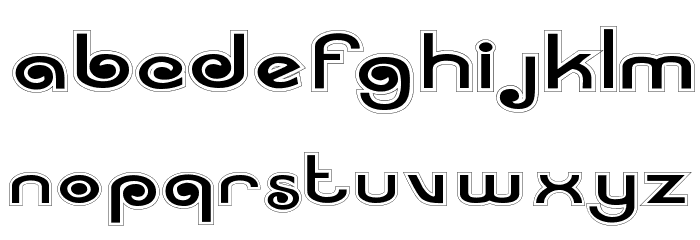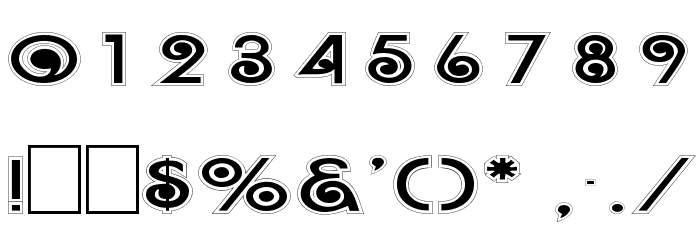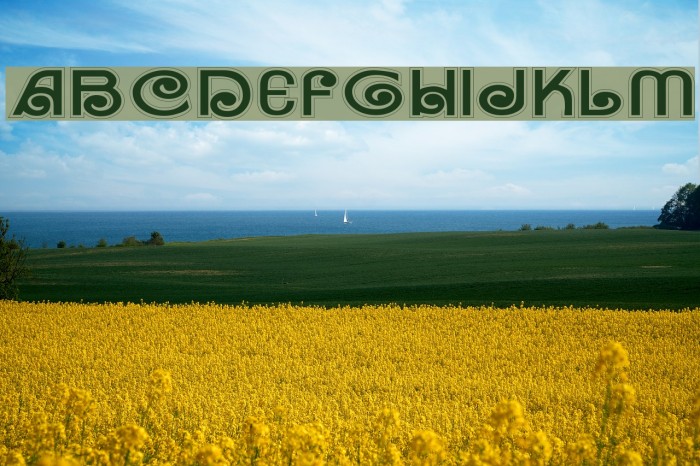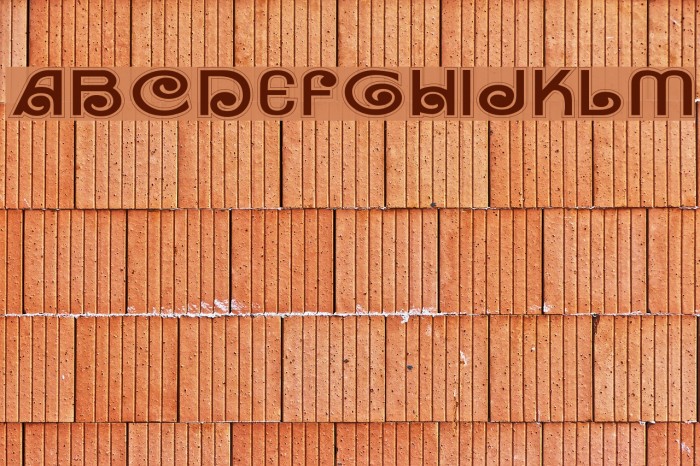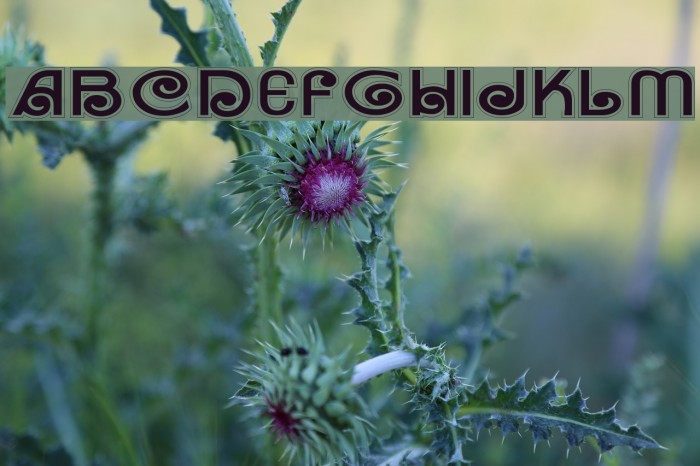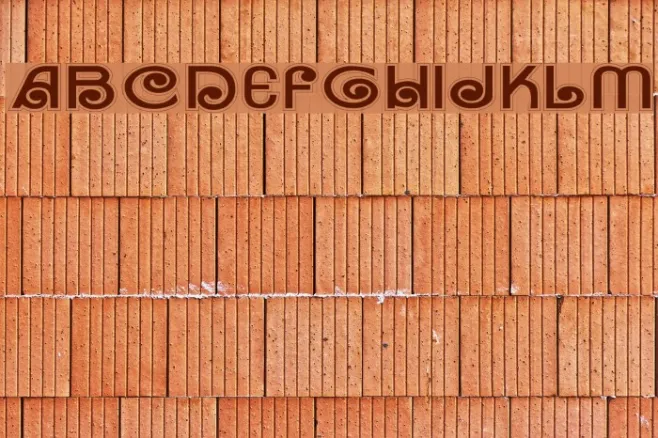
Trenz Font
This font features a bold and decorative style with a unique geometric flair. Each character is outlined, creating a striking contrast between the filled and unfilled spaces. The uppercase letters have a strong presence with rounded and angular elements, while the lowercase letters maintain a consistent style with a slightly softer approach. The numerals are equally bold, maintaining the geometric theme. Special characters are designed to match the overall aesthetic, making this font suitable for eye-catching designs.
A bold, decorative font with geometric outlines and strong visual impact.
- Proposed Projects: Ideal for poster designs, branding projects, and any creative work requiring a bold statement.